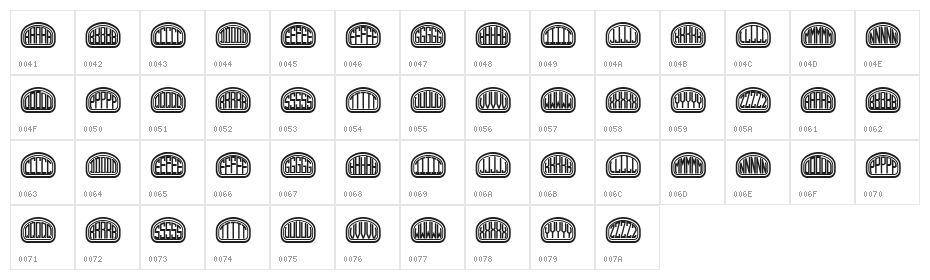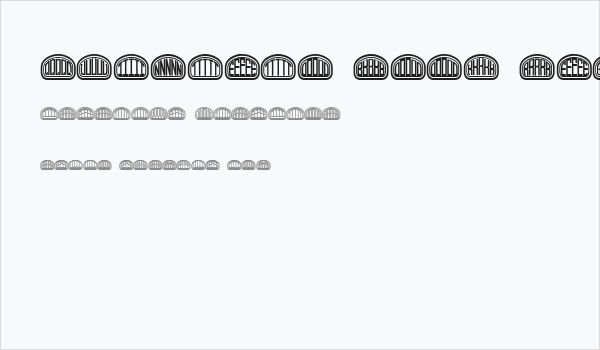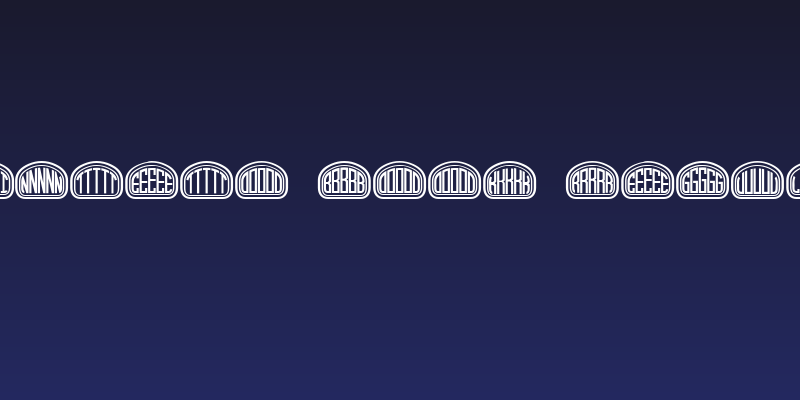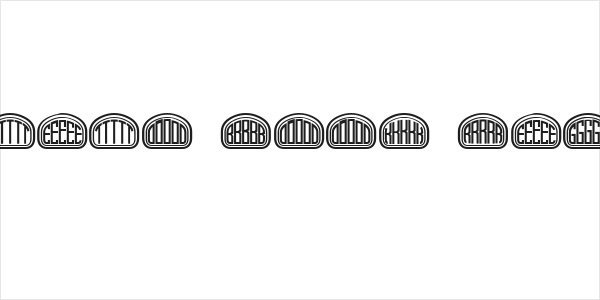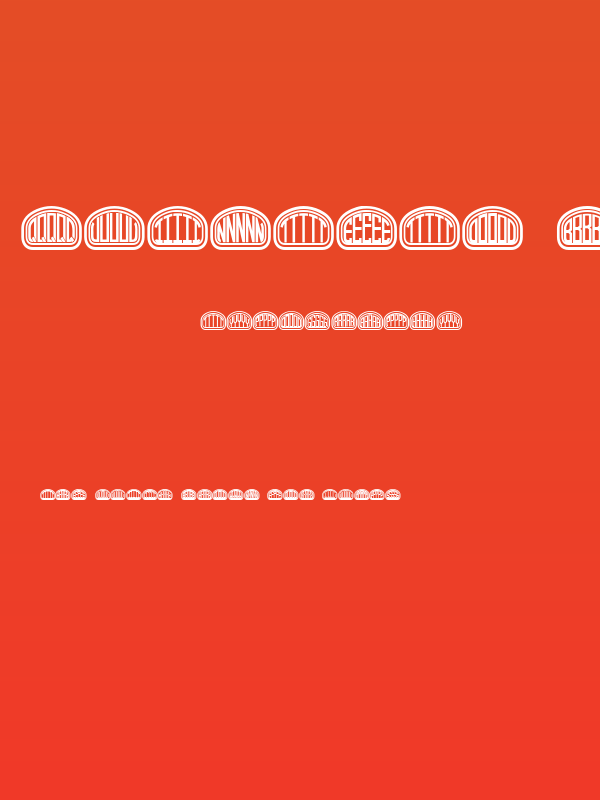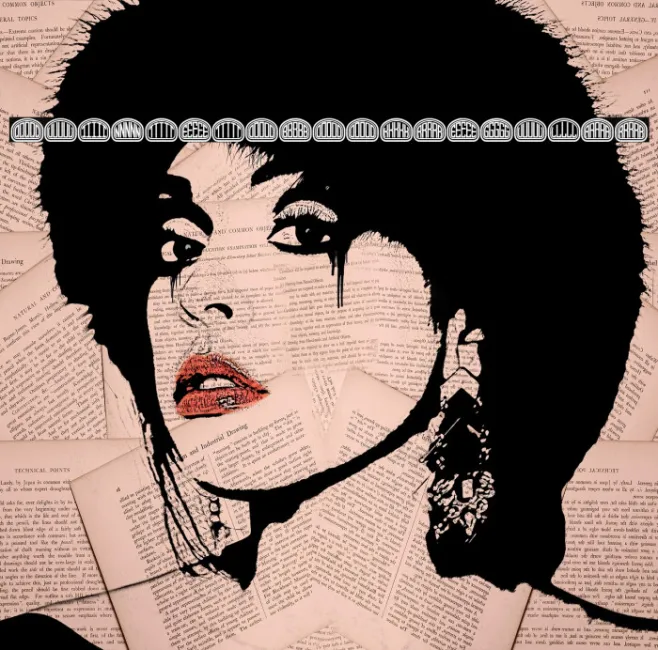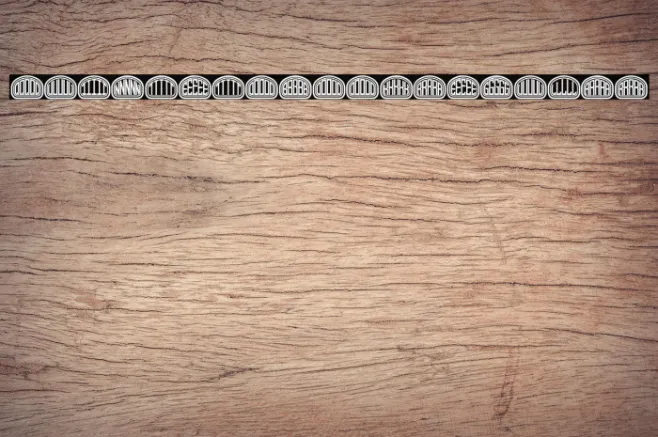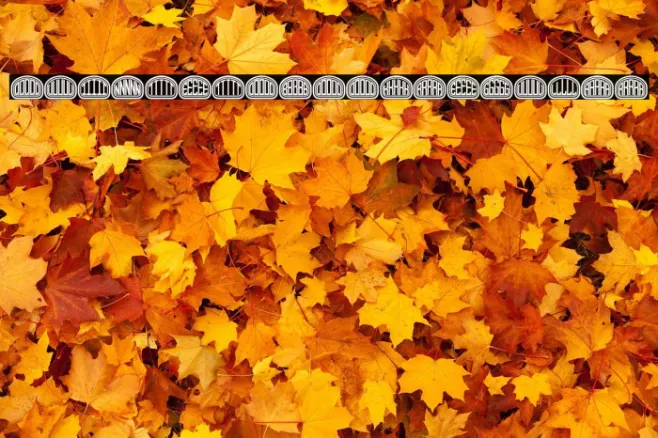
Quinteto Book Regular Font
Quinteto Book Regular Description
This font features a unique, rounded design with a bold, outlined style. Each character is enclosed within a semi-circular shape, giving it a distinct, decorative appearance. The letters are uppercase and lowercase, with numerals and special characters, all maintaining the same enclosed form. The strokes are consistent in thickness, providing a uniform look across all characters. This font's playful and artistic style makes it stand out, ideal for creative projects that require a touch of whimsy and originality.
| Proposed Projects | Ideal for posters, logos, children's books, and creative branding projects. |